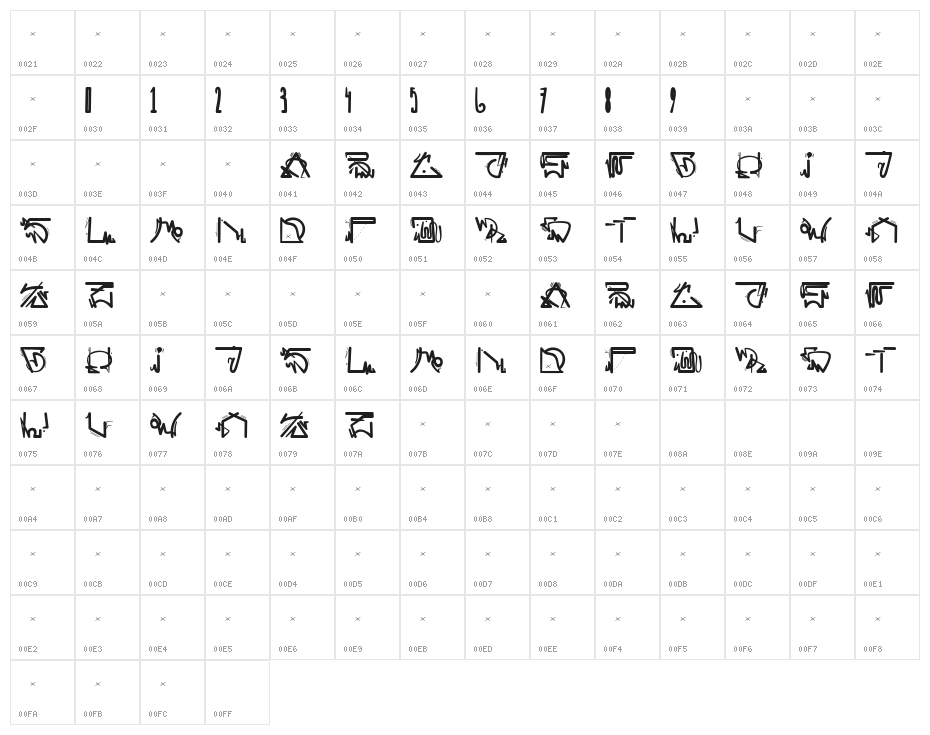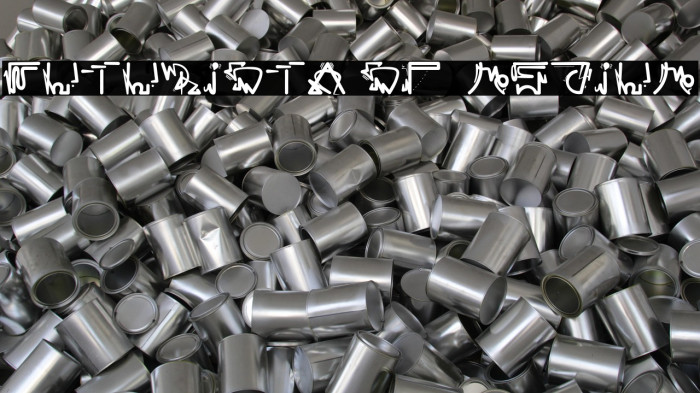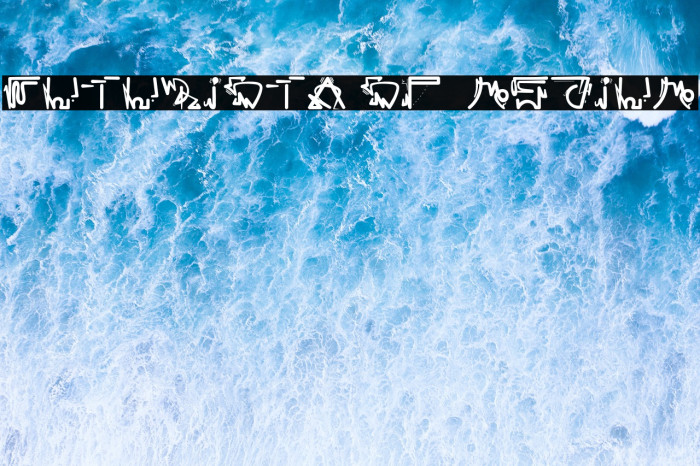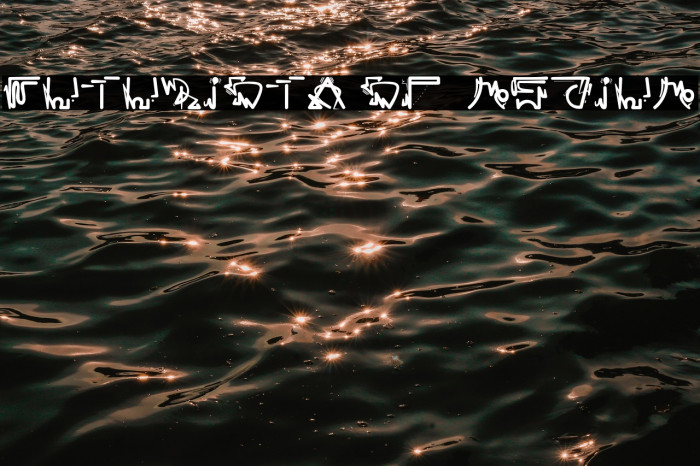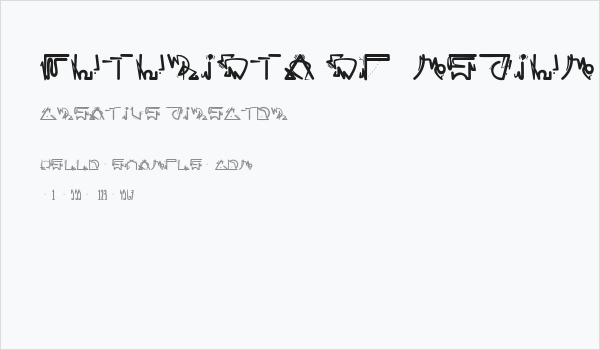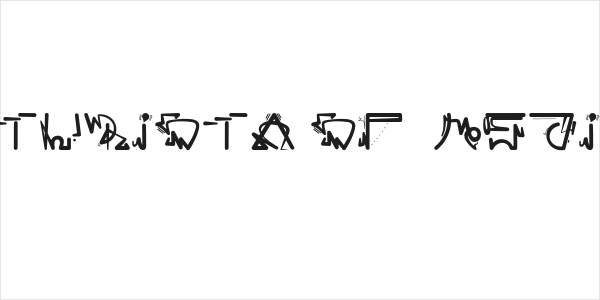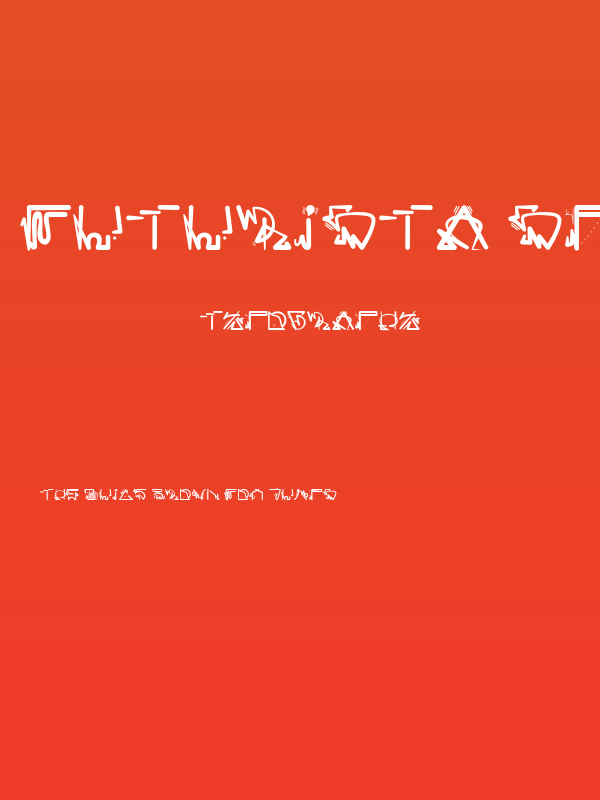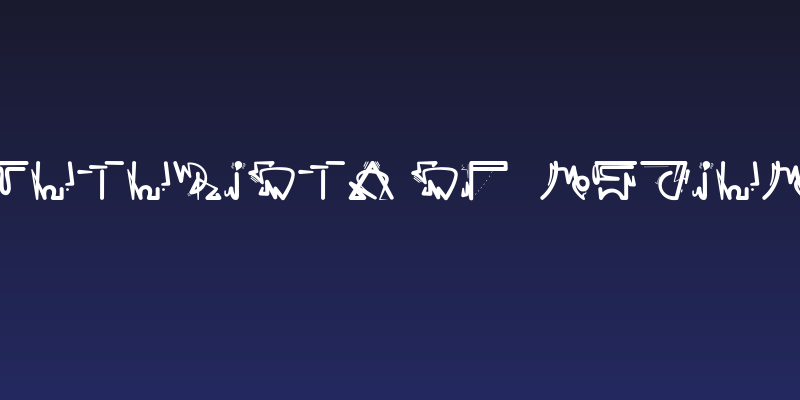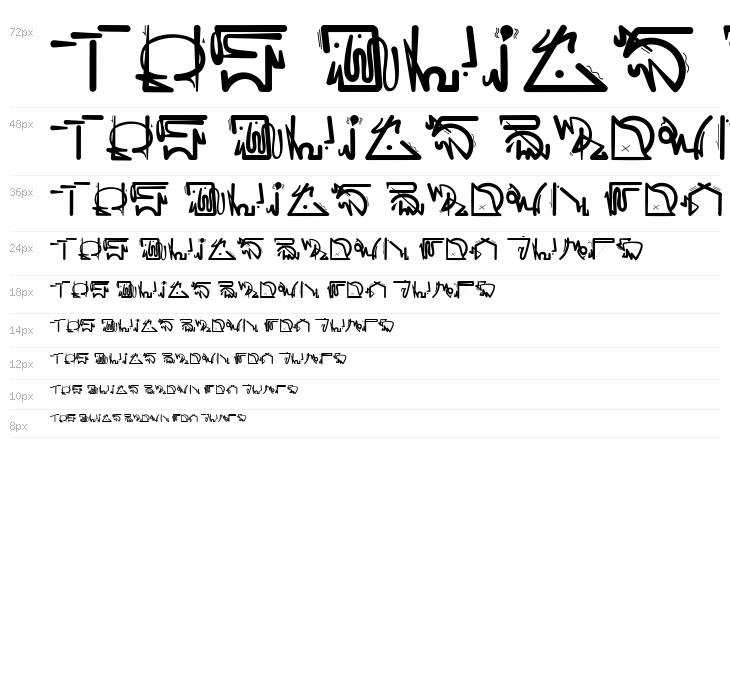
FUTURISTA SP Medium Font
FUTURISTA SP Medium Description
This font features a highly stylized and abstract design, with characters that resemble futuristic symbols or hieroglyphs. The uppercase and lowercase letters are indistinguishable, each character crafted with unique geometric shapes and lines, giving it a cryptic and avant-garde appearance. The numbers are more recognizable but still maintain a quirky, distorted style. The special characters follow the same abstract theme, adding to the overall mysterious and artistic vibe. This font is ideal for projects that require a distinct and unconventional look, such as sci-fi themed designs, artistic posters, or experimental branding.
| Overall Style | Futuristic, Avant-garde |
| Use Case | Logos, Artistic posters, Sci-fi themes |
| Proposed Projects | Ideal for sci-fi themed designs, artistic posters, experimental branding, and creative projects requiring a unique look. |